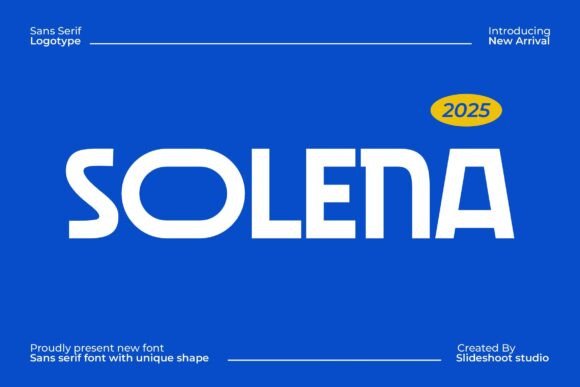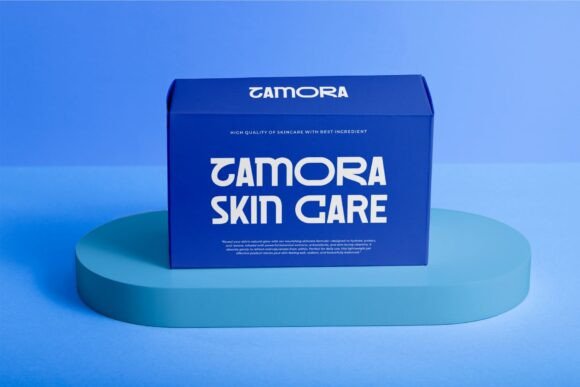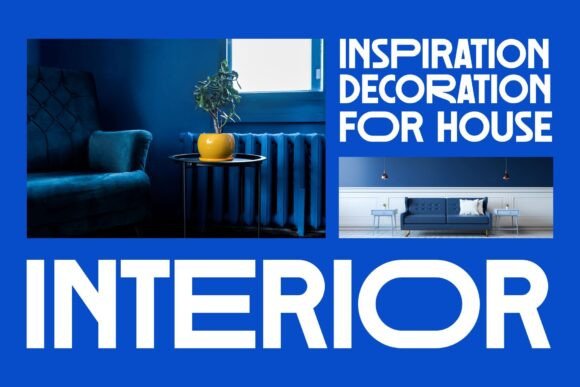
Solena Font: Modern & Bold Sans Serif for Logo Design & Branding!
About the Solena Font
We are excited to introduce Solena Font, a must-have typeface for any serious designer. Solena is a clean and geometric sans serif font with a unique twist. Designed for logos and modern branding, it features bold shapes and fresh styling that make it stand out in minimalist layouts. Ideal for tech, creative agencies, and forward-thinking designs.
Solena Font Usage Examples
Solena Font Example